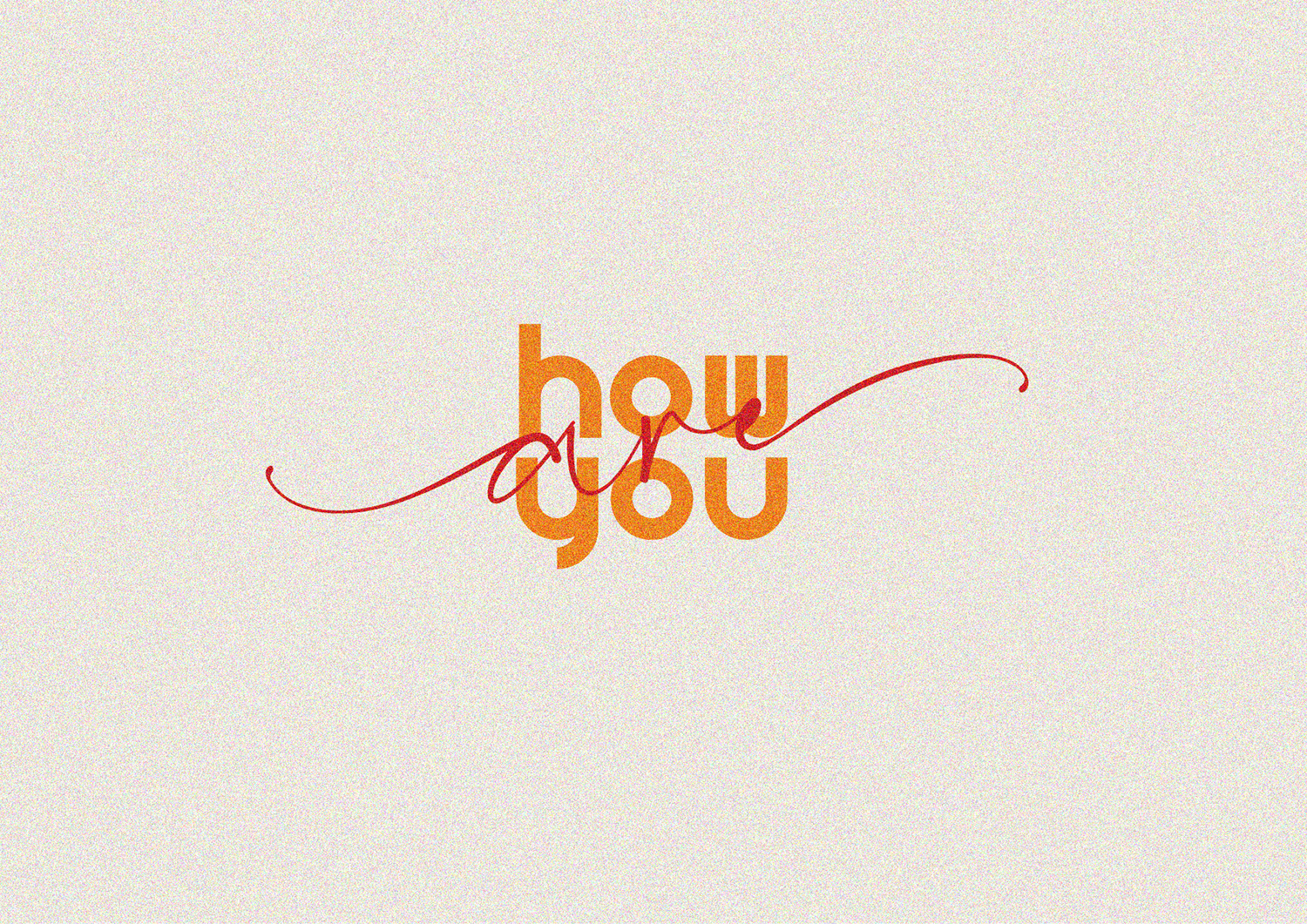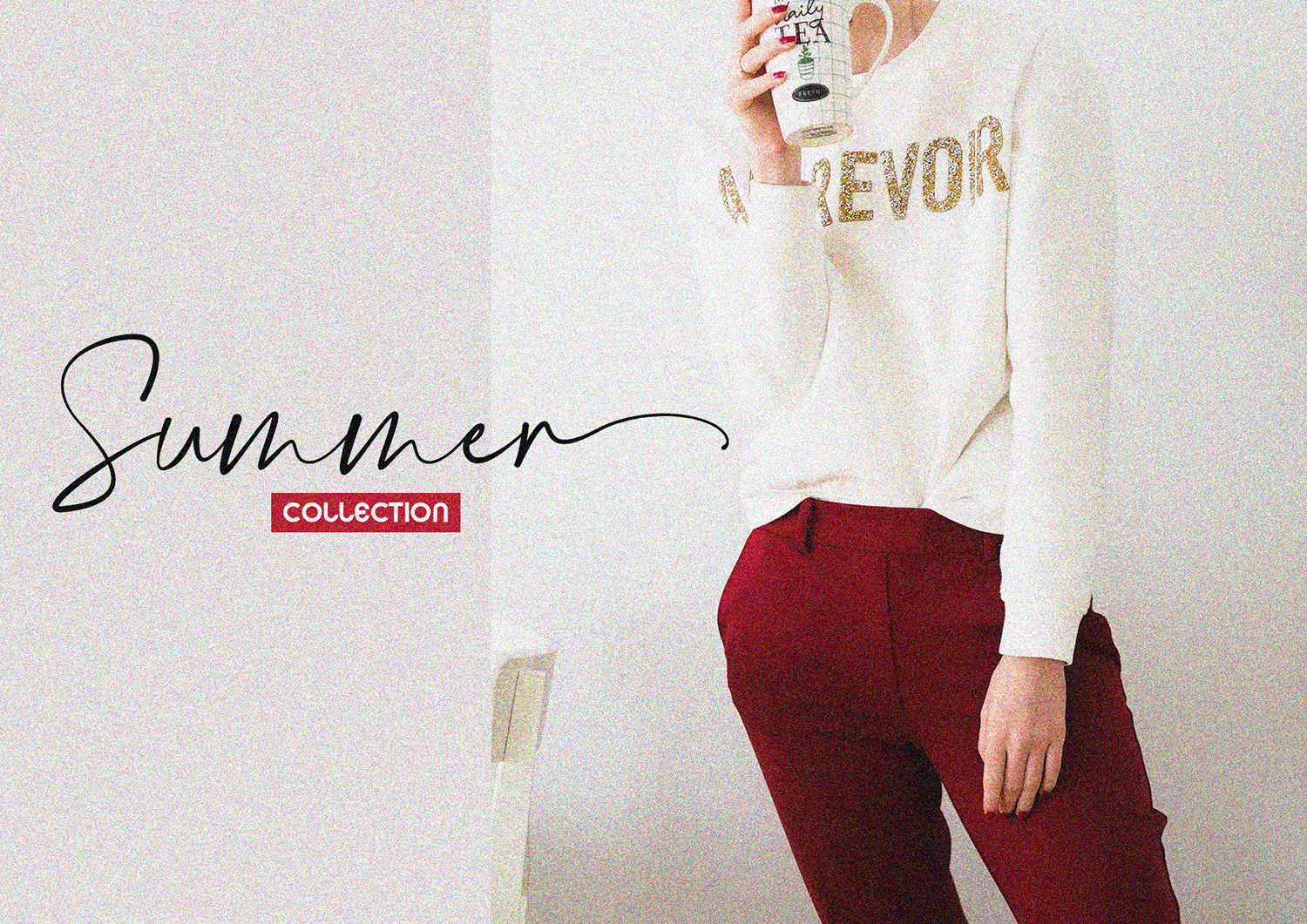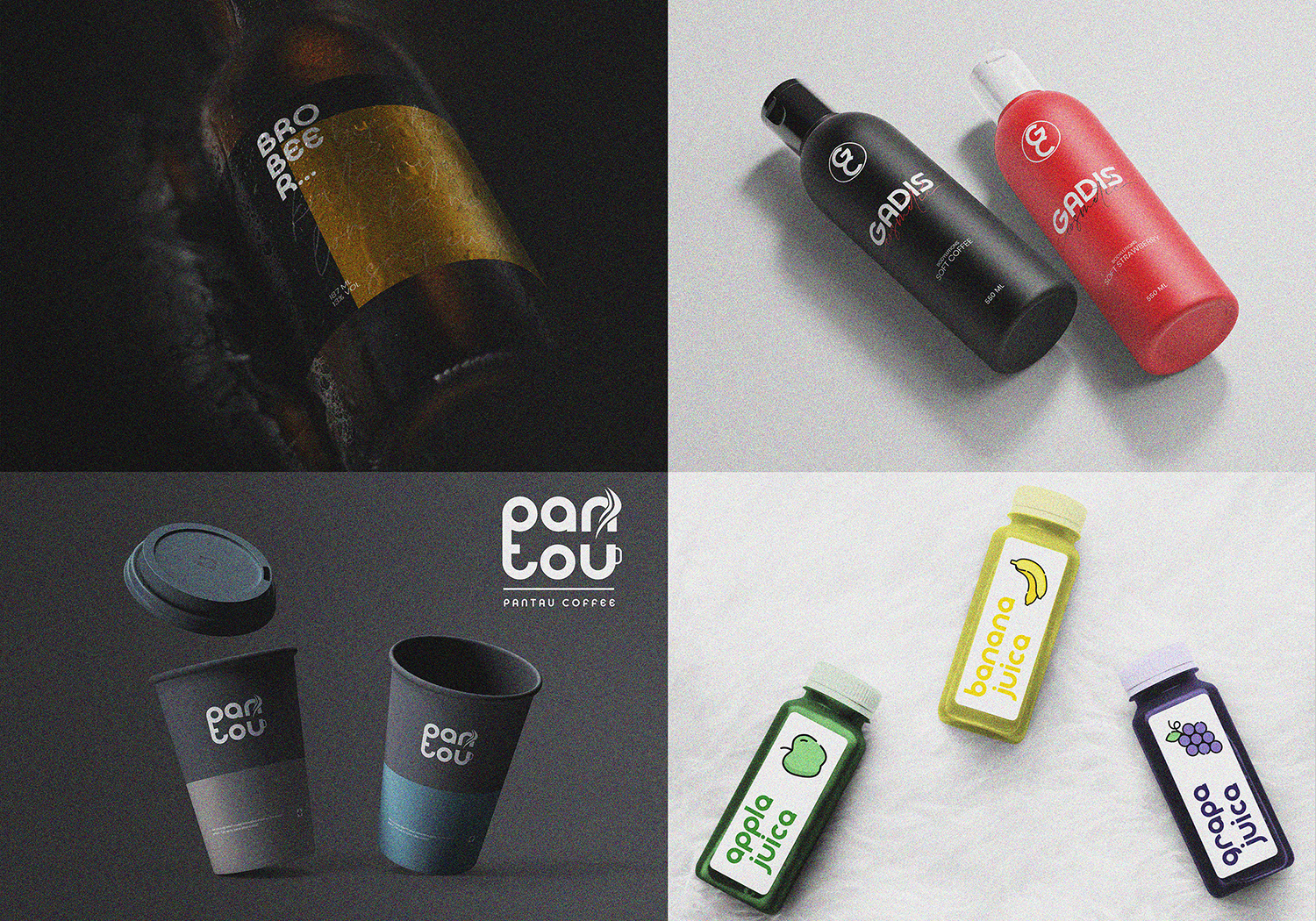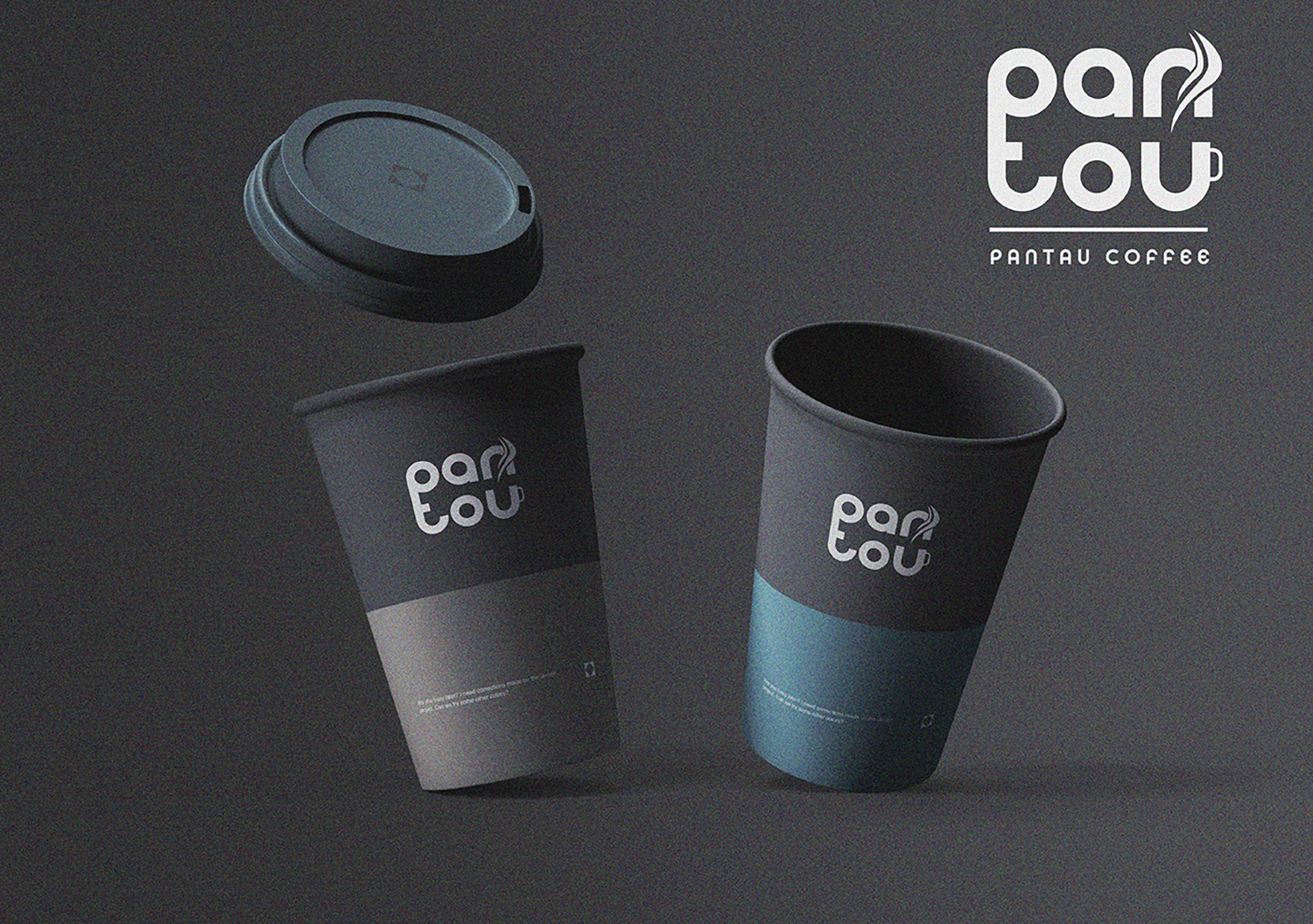
Free Gatha Free Font Duo
Free Gatha Free Font Duo is a playful font duo that includes a signature script and an elegant sans – already matched up and ready to be used together for your next design. This free typeface was designed by a talented Khaiuns. If you like it don’t forget to check out the full version.